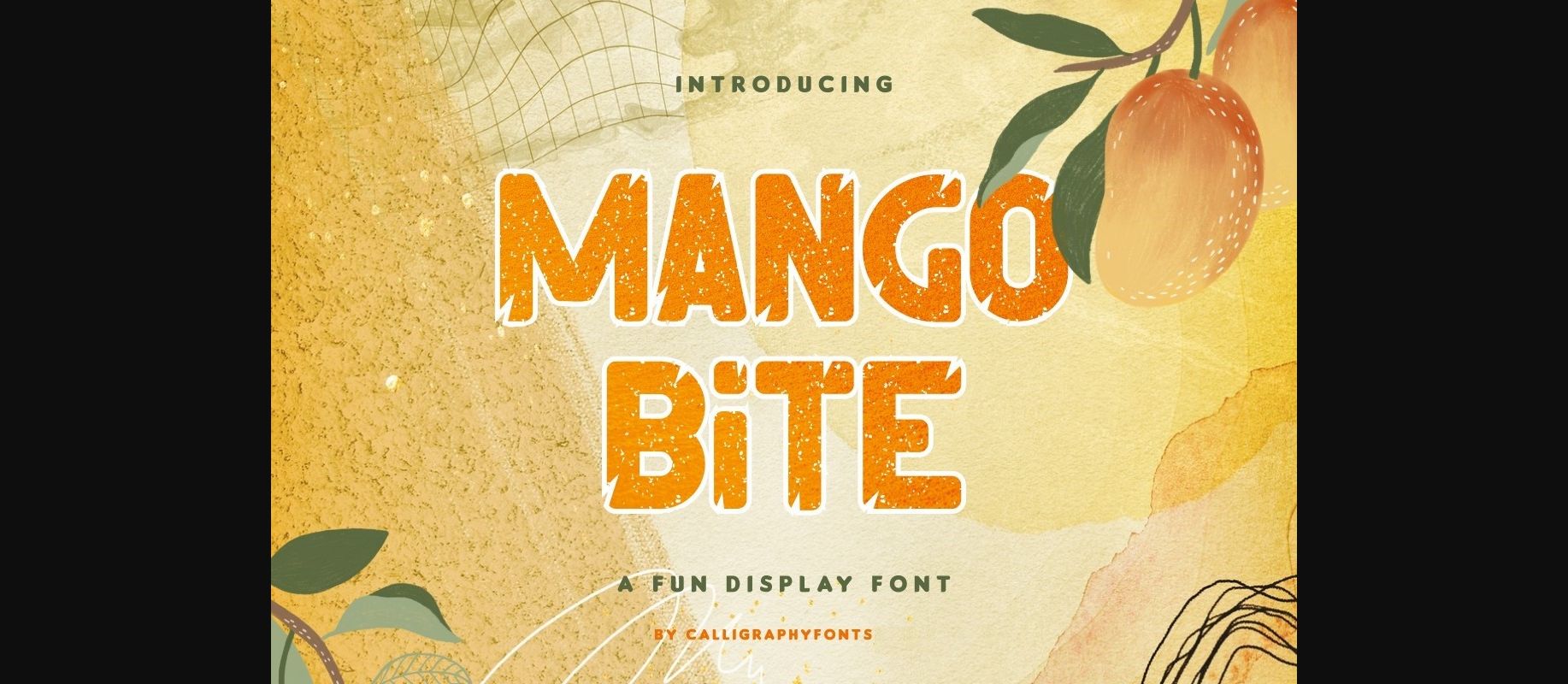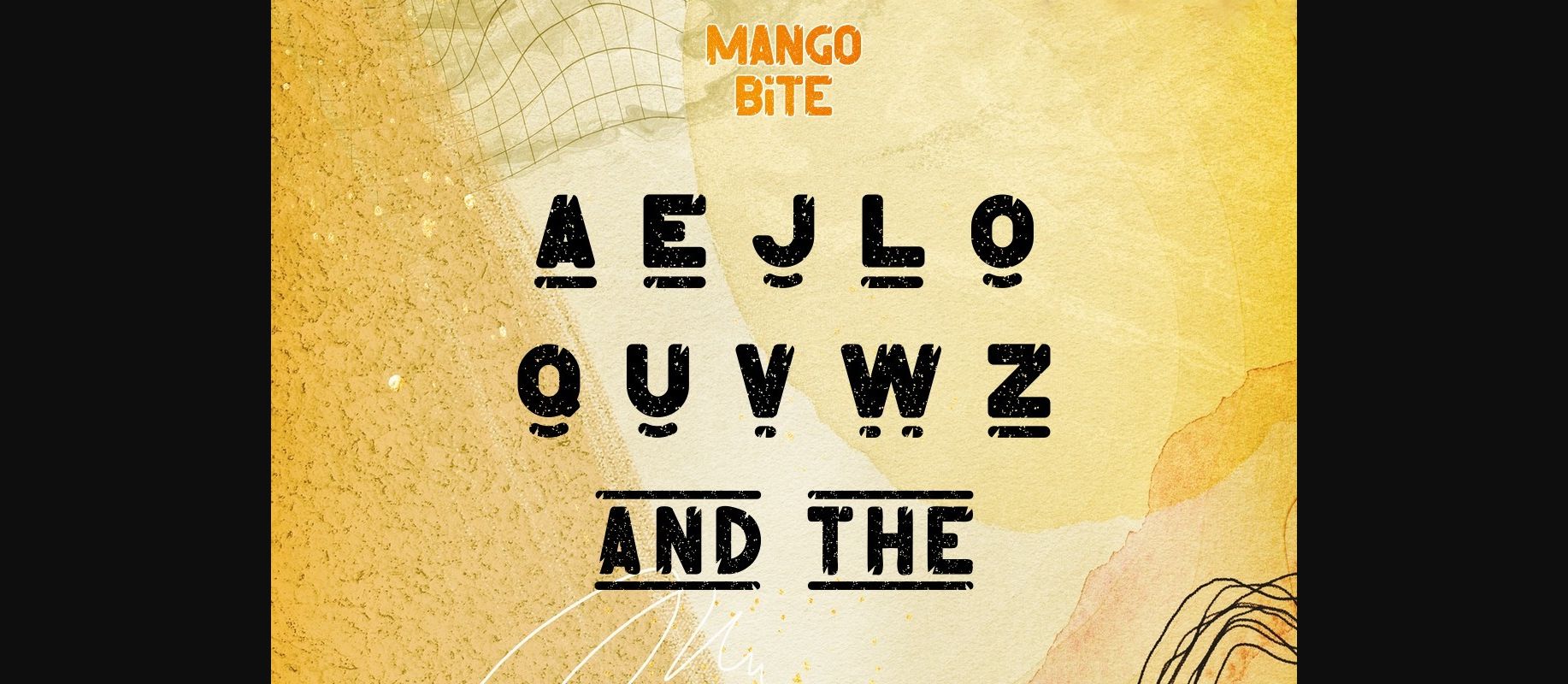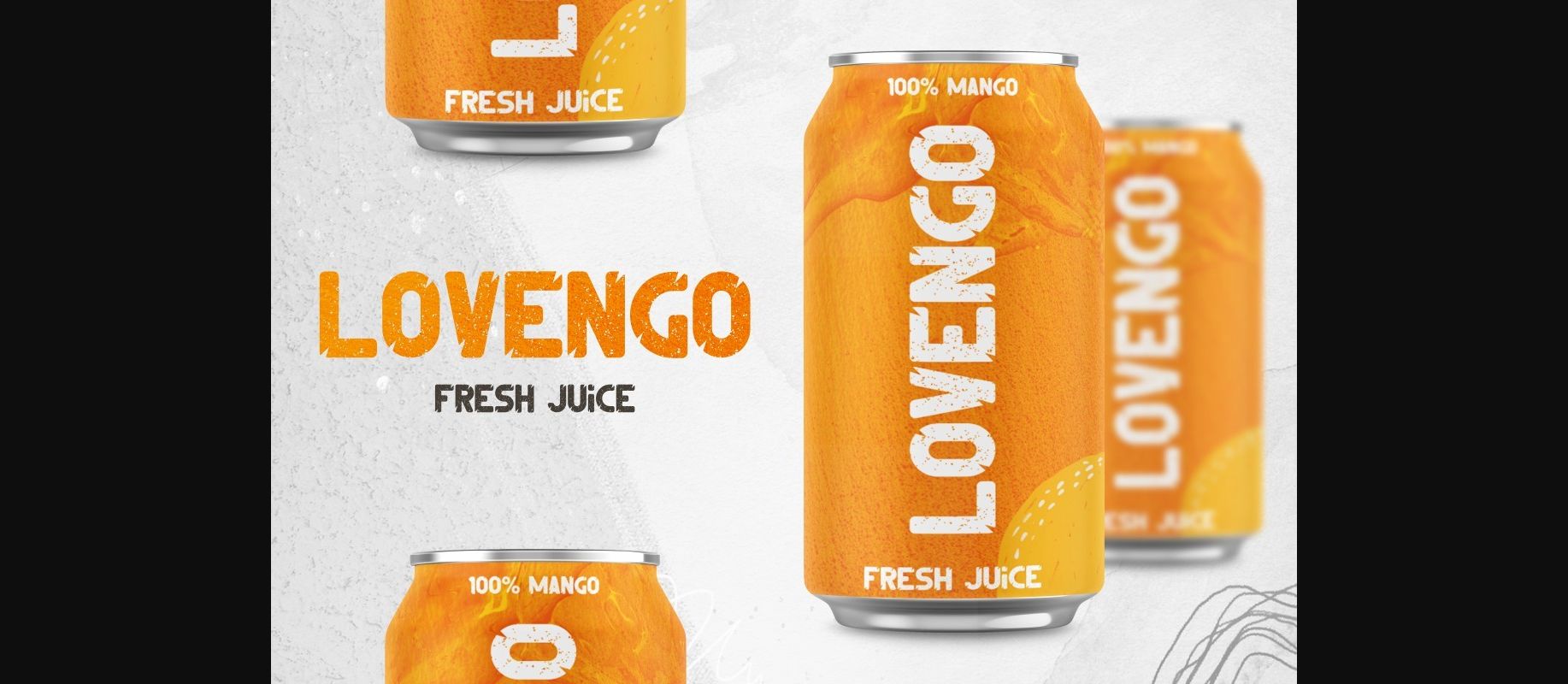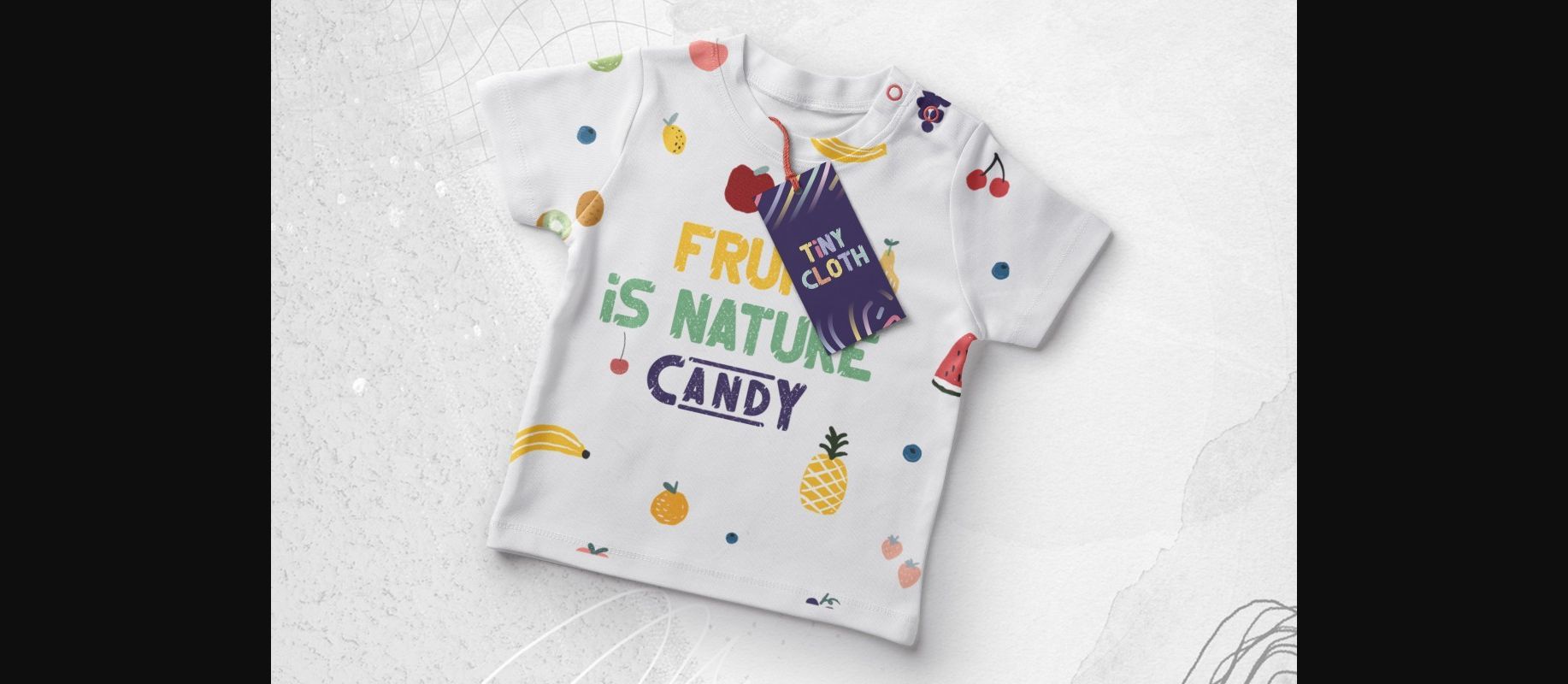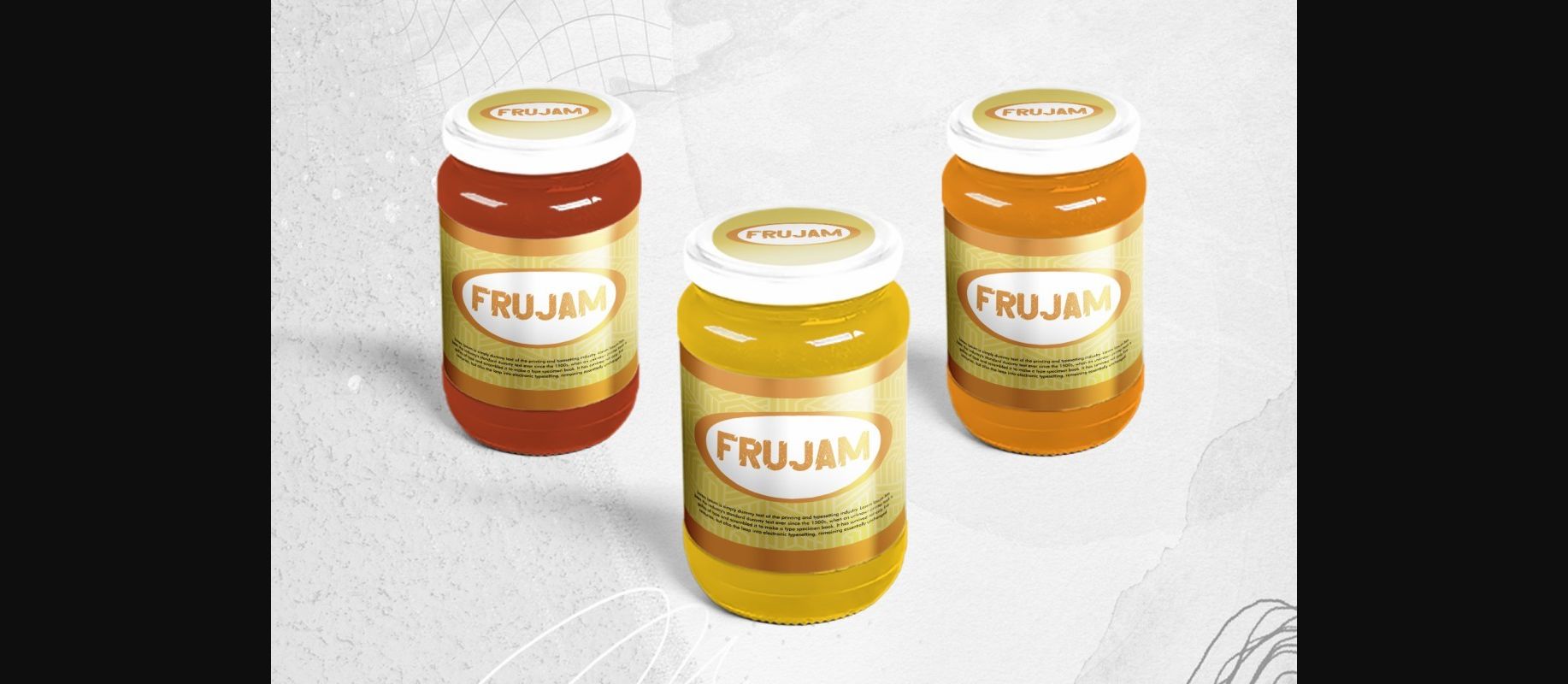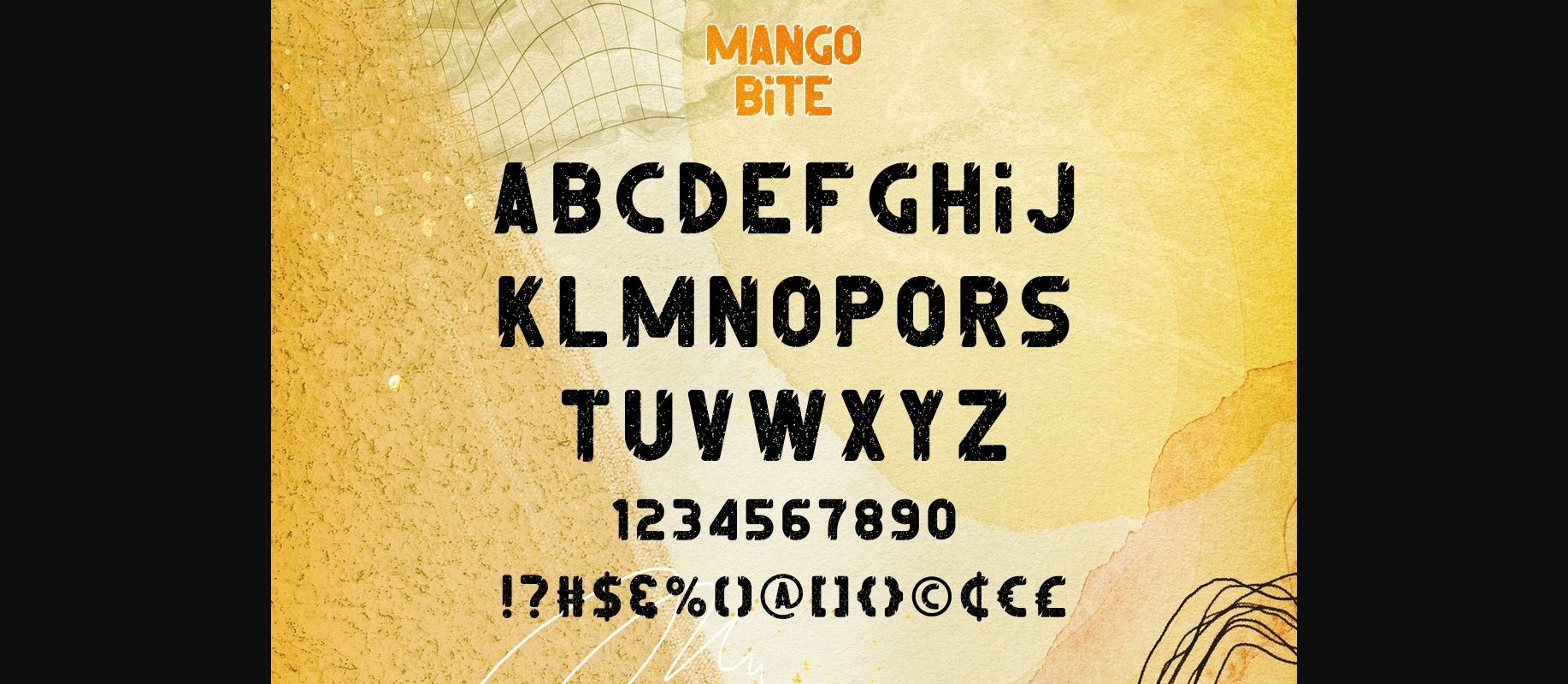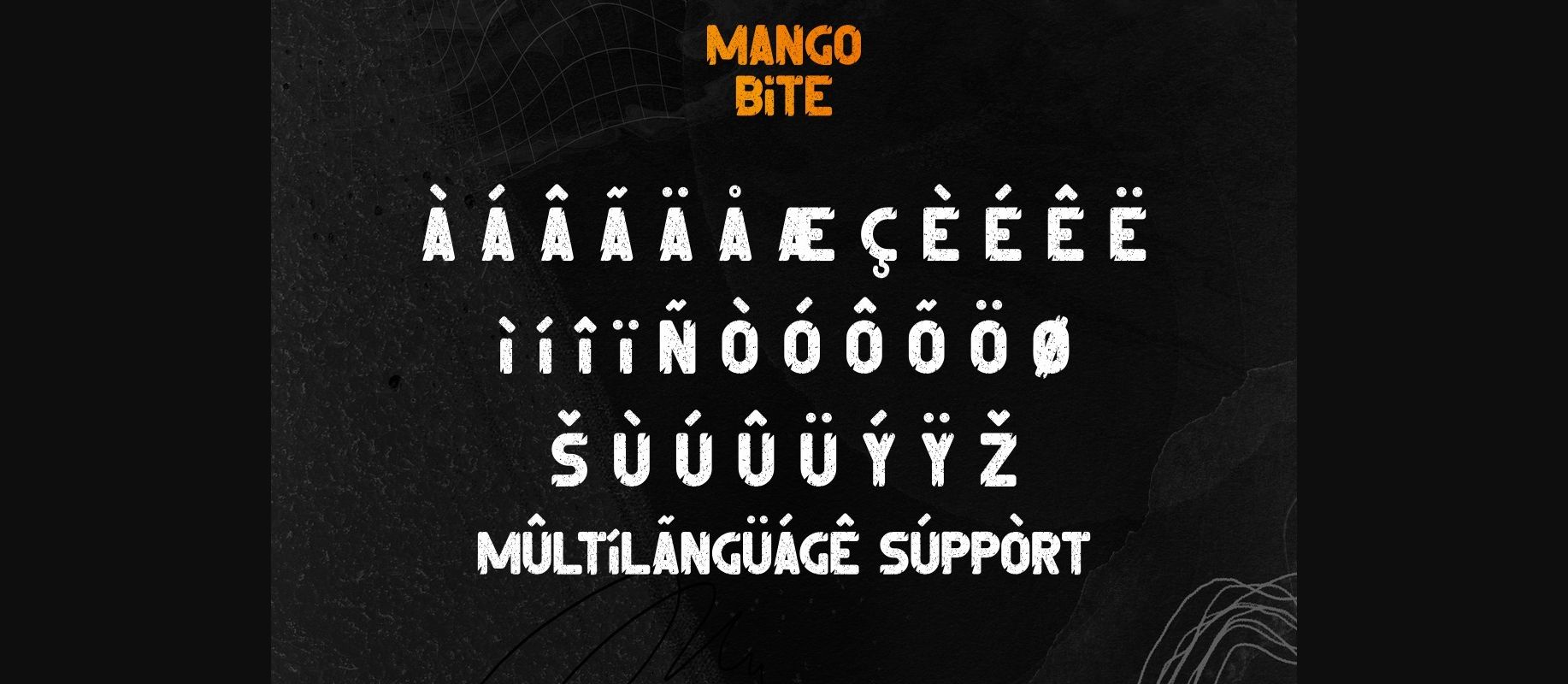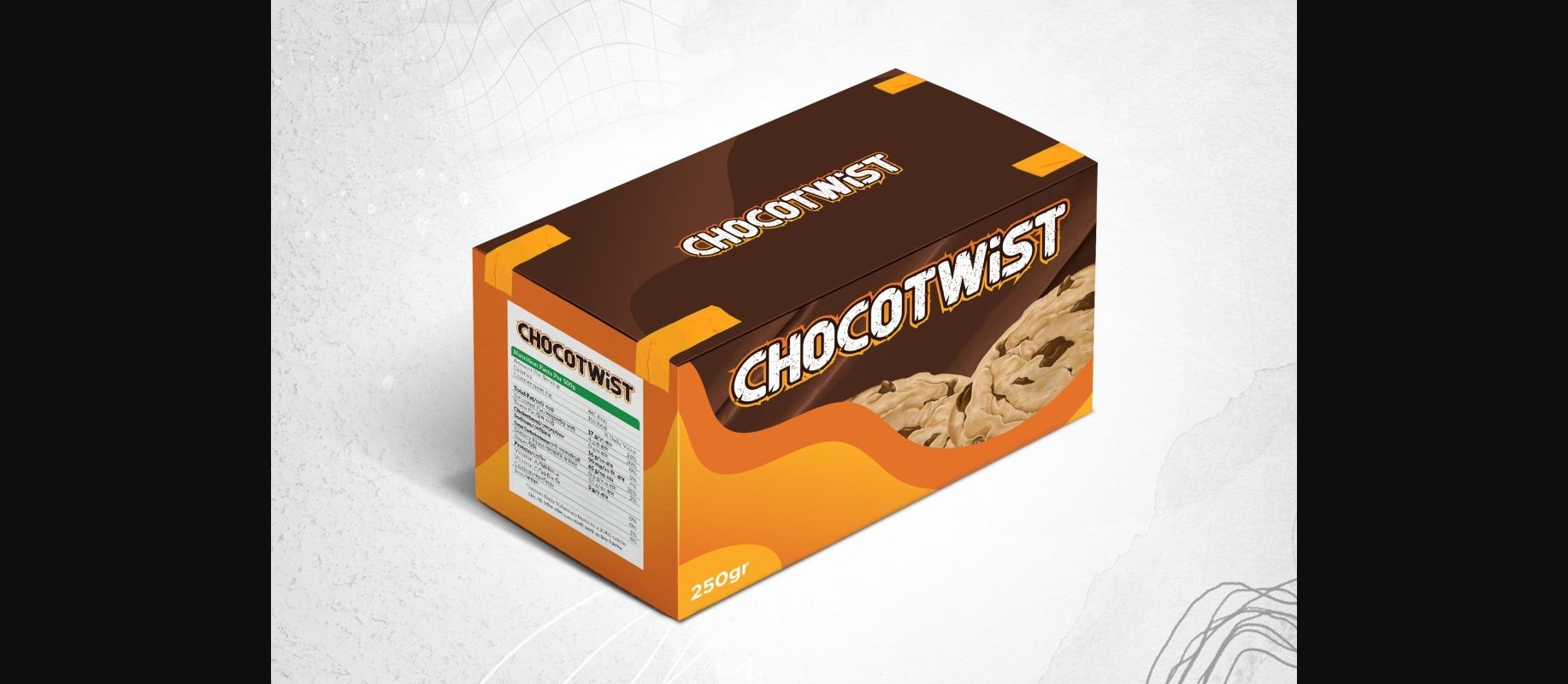
Mango Bite Font
About Mango Bite Font
Mango Bite is a fun decorative font. It evolved from a sans serif font with a cracked and bitten effect on letters. Great for clothing, lettering, logos, products packaging, signage, title, etc. Mango Bite is a fresh and unique font that will be awesome for many industries including fashion, food and drink, games, kids, and more!